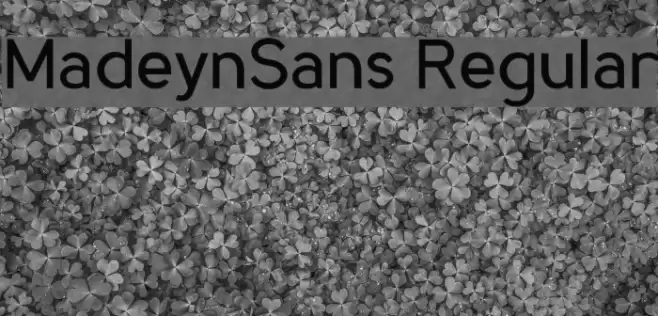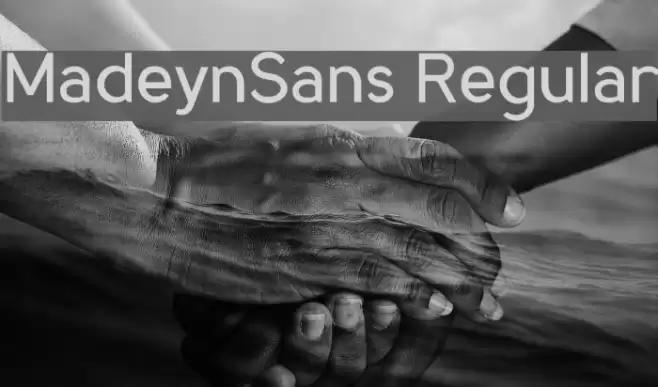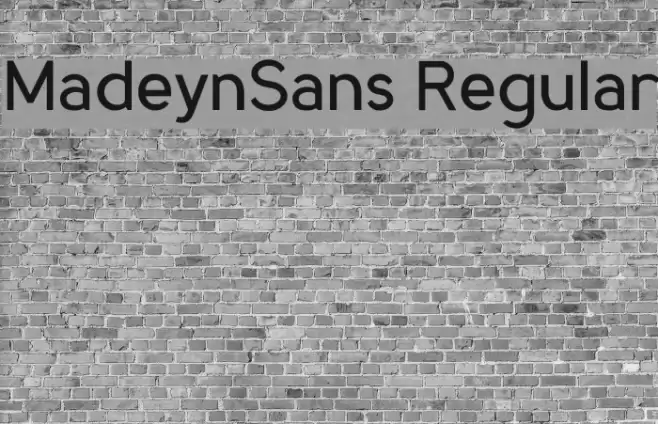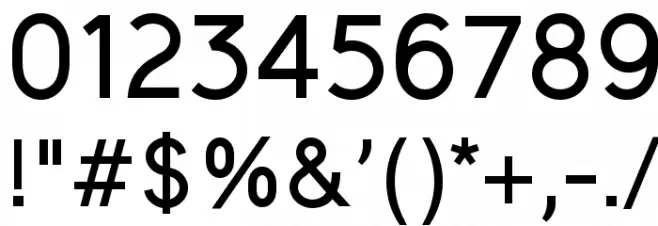
MadeynSans Regular Font
MadeynSans Regular Description
This font features a clean and modern sans-serif design, characterized by its simplicity and readability. The letters are evenly spaced with a consistent stroke width, providing a balanced and harmonious appearance. The uppercase and lowercase letters are well-proportioned, making it suitable for a variety of applications. The numerals are clear and distinct, ensuring legibility in both digital and print formats. Special characters are included, offering versatility for different types of content. Overall, this font exudes a contemporary and professional feel, making it ideal for modern design projects.
A clean, modern sans-serif font with balanced proportions and excellent readability from Uncategorized fonts.
- Proposed Projects: Ideal for corporate branding, web design, user interfaces, and editorial layouts.